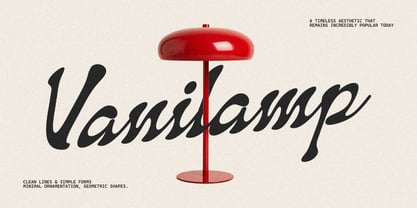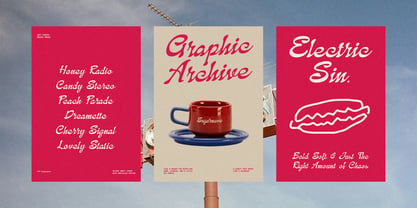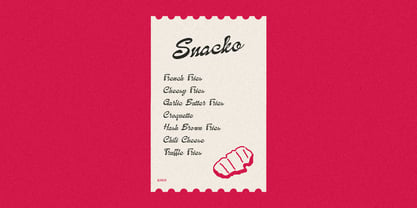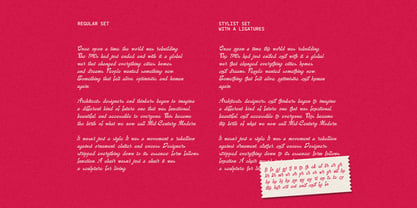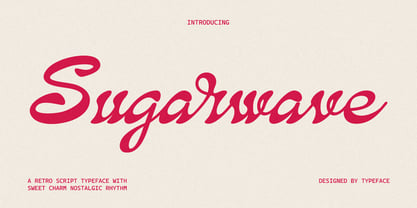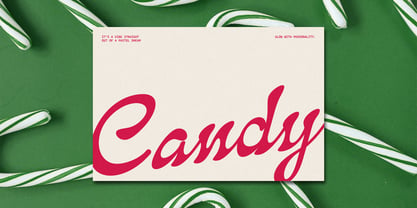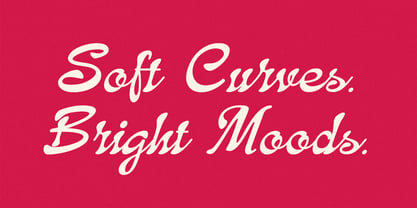
ATP Sugarwave
The ATP Sugarwave Font Family was designed by Thufail Al ghifary and published by Typeparties. ATP Sugarwave contains 1 styles. More about this family
Sugarwave isn’t just a font; it’s a vibe straight out of a pastel dream. Imagine neon lights, soft vinyl static, and endless summer playlists. This typeface flows with confidence, blending sugar-sweet curves and retro rhythm. It’s designed for creators who embrace nostalgia with a playful twist and vibrant energy. Ideal for logos, posters, and any project that deserves to shine with personality, Sugarwave adds a unique touch to branding, web design, and editorial layouts. Its standout features include multiple weights and capabilities, making it versatile for various creative applications.